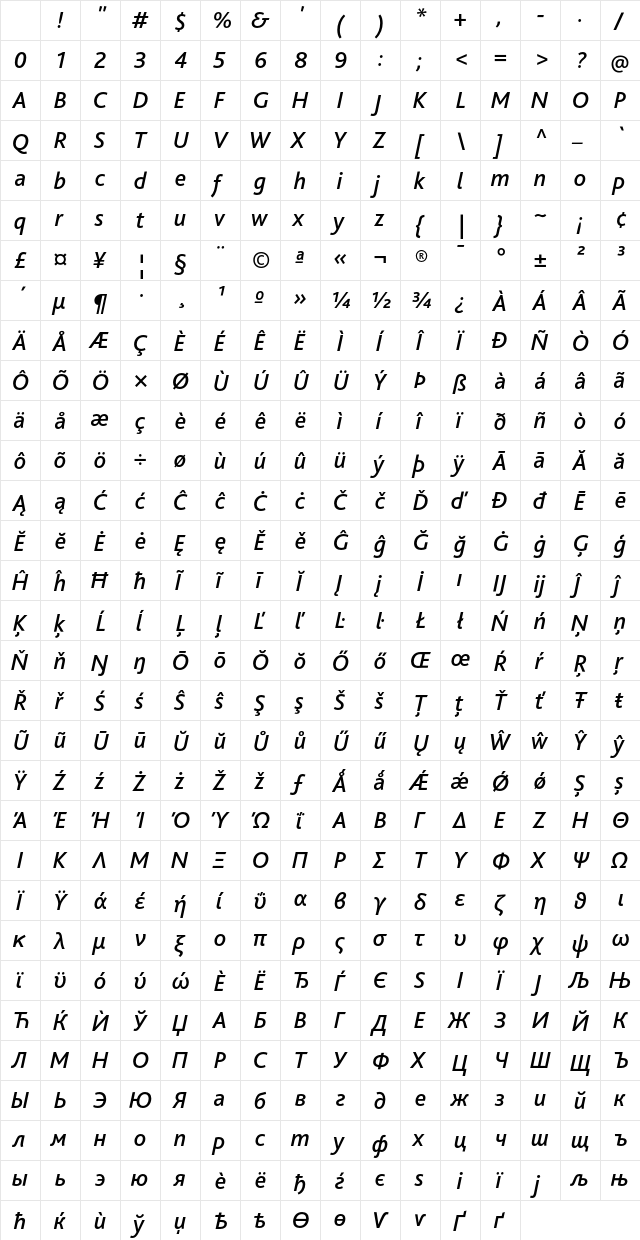
Complete BlissPro Medium Italic glyph index. Displaying only characters natively supported by BlissPro Medium Italic font.
BlissPro is a composed and adaptable typeface that performs quietly and consistently across a wide range of design contexts. The slanted form adds forward momentum and visual energy.